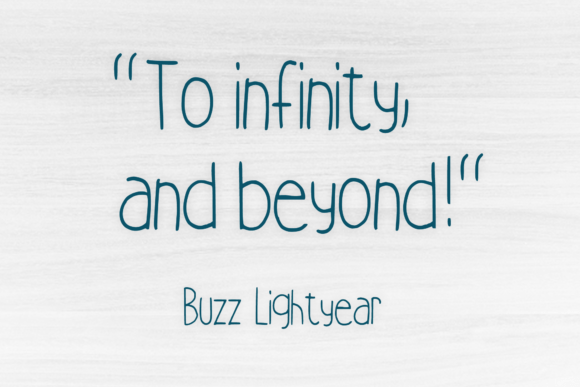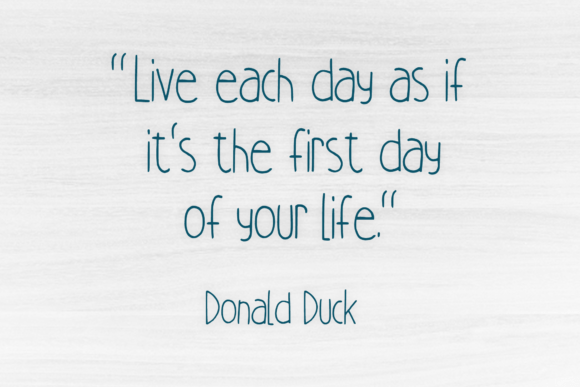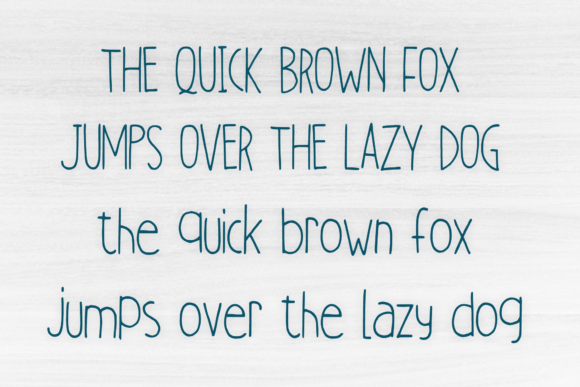
Introducing Essentials Font: The Ultimate Minimalist Sans Serif Handwritten Font
Are you a designer or crafter looking for a font that can add a touch of casual elegance to your projects? Look no further than Essentials Font, a beautiful minimalist sans serif handwritten font that’s perfect for a wide range of applications. In this article, we’ll explore the features and benefits of Essentials Font, and show you how to make the most of this versatile and stylish font.
What is Essentials Font?
Essentials Font is a carefully crafted sans serif handwritten font that’s designed to be incredibly versatile. Its minimalist approach makes it perfect for a wide range of projects, from t-shirts and kids’ book designs to greeting cards, stickers, and posters. With its clean lines and simple shapes, Essentials Font is a font that can be used in a variety of contexts, from formal to informal, and is sure to add a touch of sophistication to any design.
Key Features of Essentials Font
- Minimalist design: Essentials Font features a clean and simple design that’s perfect for creating modern and elegant designs.
- Sans serif: The font’s sans serif design makes it easy to read and perfect for use in a variety of contexts.
- Handwritten feel: Despite its minimalist approach, Essentials Font still has a handwritten feel that adds a touch of personality to any design.
- Versatile: Essentials Font can be used for a wide range of projects, from t-shirts and kids’ book designs to greeting cards, stickers, and posters.
Why Choose Essentials Font?
So why choose Essentials Font for your next project? Here are just a few reasons why this font stands out from the crowd:
- Ease of use: Essentials Font is incredibly easy to use, even for designers who are new to working with fonts.
- Highly legible: The font’s clean design and simple shapes make it highly legible, even at small sizes.
- Customizable: Essentials Font can be easily customized to fit your project’s specific needs, from adjusting the font size to adding your own unique touches.
- Unique style: Essentials Font has a unique style that’s sure to set your designs apart from the crowd.
Using Essentials Font in Your Designs
So how can you use Essentials Font in your designs? Here are a few ideas to get you started:
- T-shirts and apparel: Essentials Font is perfect for creating custom t-shirts, hoodies, and other apparel.
- Kids’ book designs: The font’s playful feel makes it perfect for kids’ book designs, from storybooks to activity books.
- Greeting cards and invitations: Essentials Font is a great choice for creating custom greeting cards and invitations.
- Stickers and posters: The font’s bold and playful design makes it perfect for creating eye-catching stickers and posters.
Tips and Tricks for Working with Essentials Font
Here are a few tips and tricks to help you get the most out of Essentials Font:
- Experiment with font sizes: Don’t be afraid to experiment with different font sizes to find the perfect fit for your design.
- Add your own touches: Consider adding your own unique touches to the font, such as custom illustrations or graphics.
- Pair with other fonts: Essentials Font pairs well with a variety of other fonts, so don’t be afraid to experiment with different combinations.
- Use in combination with images: The font’s simple design makes it perfect for use in combination with images and graphics.
In conclusion, Essentials Font is a versatile and stylish font that’s perfect for designers and crafters looking to add a touch of casual elegance to their projects. With its minimalist design, sans serif approach, and handwritten feel, Essentials Font is a font that can be used in a wide range of contexts. Whether you’re creating t-shirts, kids’ book designs, greeting cards, or stickers and posters, Essentials Font is a great choice. So why not give it a try and see what amazing designs you can create?